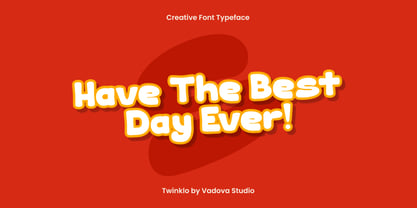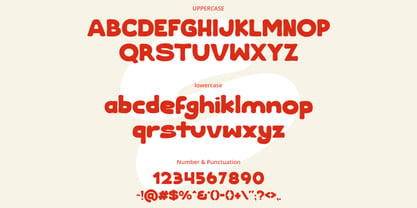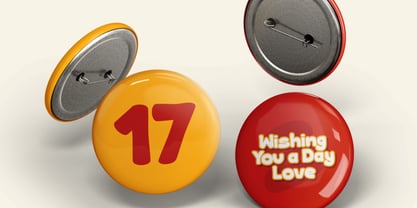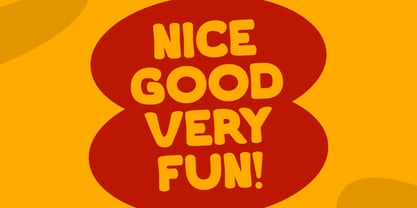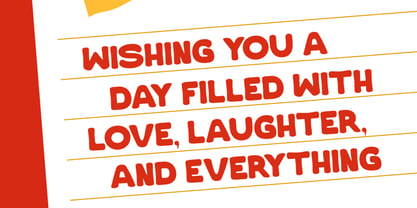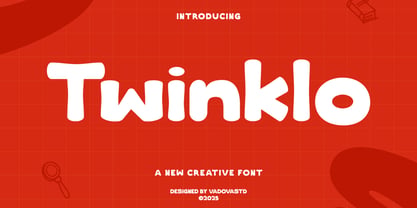
Twinklo
by Vadova Std
The Twinklo Font Family was designed by and published by Vadova Std. Twinklo contains 1 styles. More about this family
Elevate your designs with Twinklo Creative Font, a font perfect for adding elegance and style to your projects. Whether it’s for quotes, logotypes, magazine headers, or more, this versatile typeface ensures your text stands out beautifully.
• Uppercase & Lowercase Character